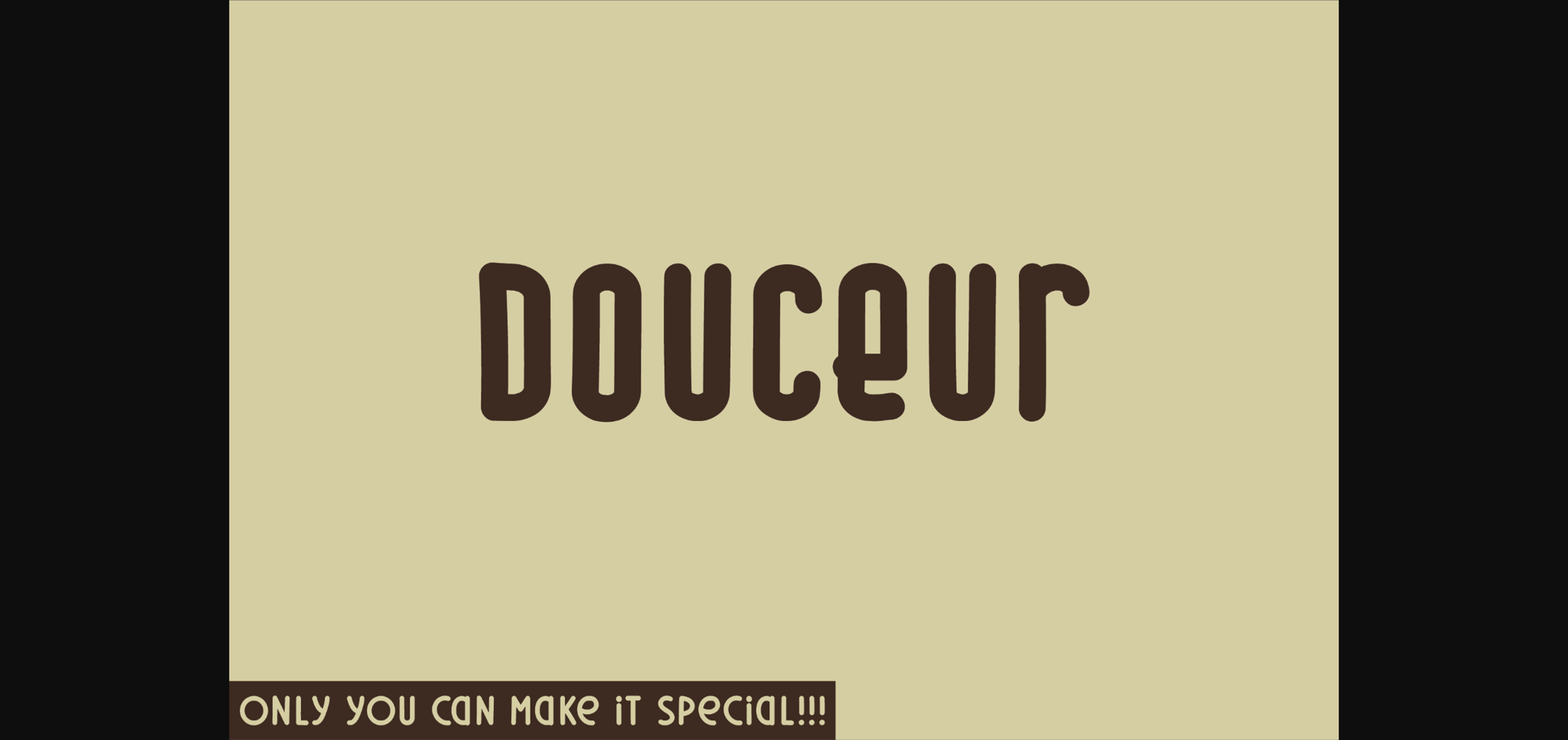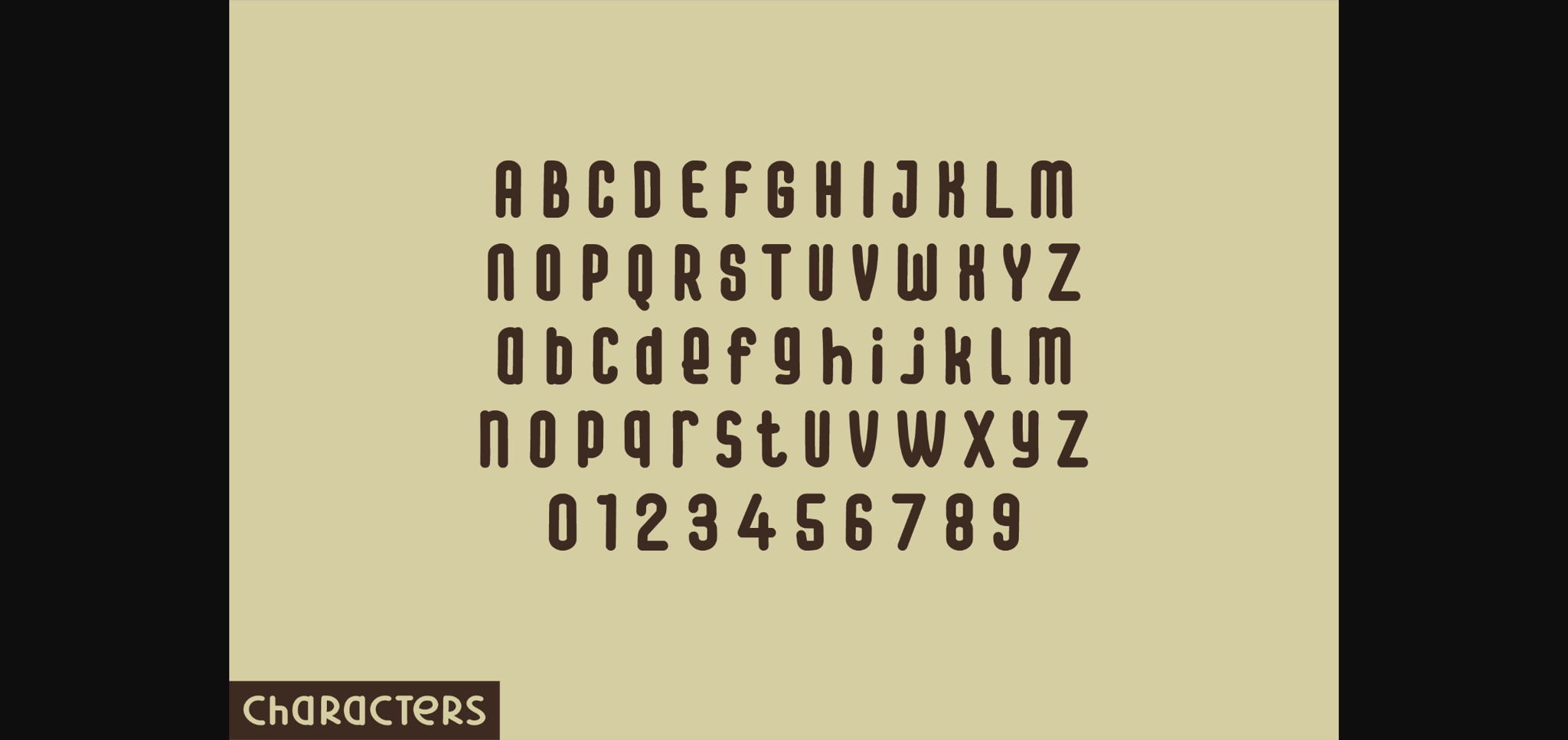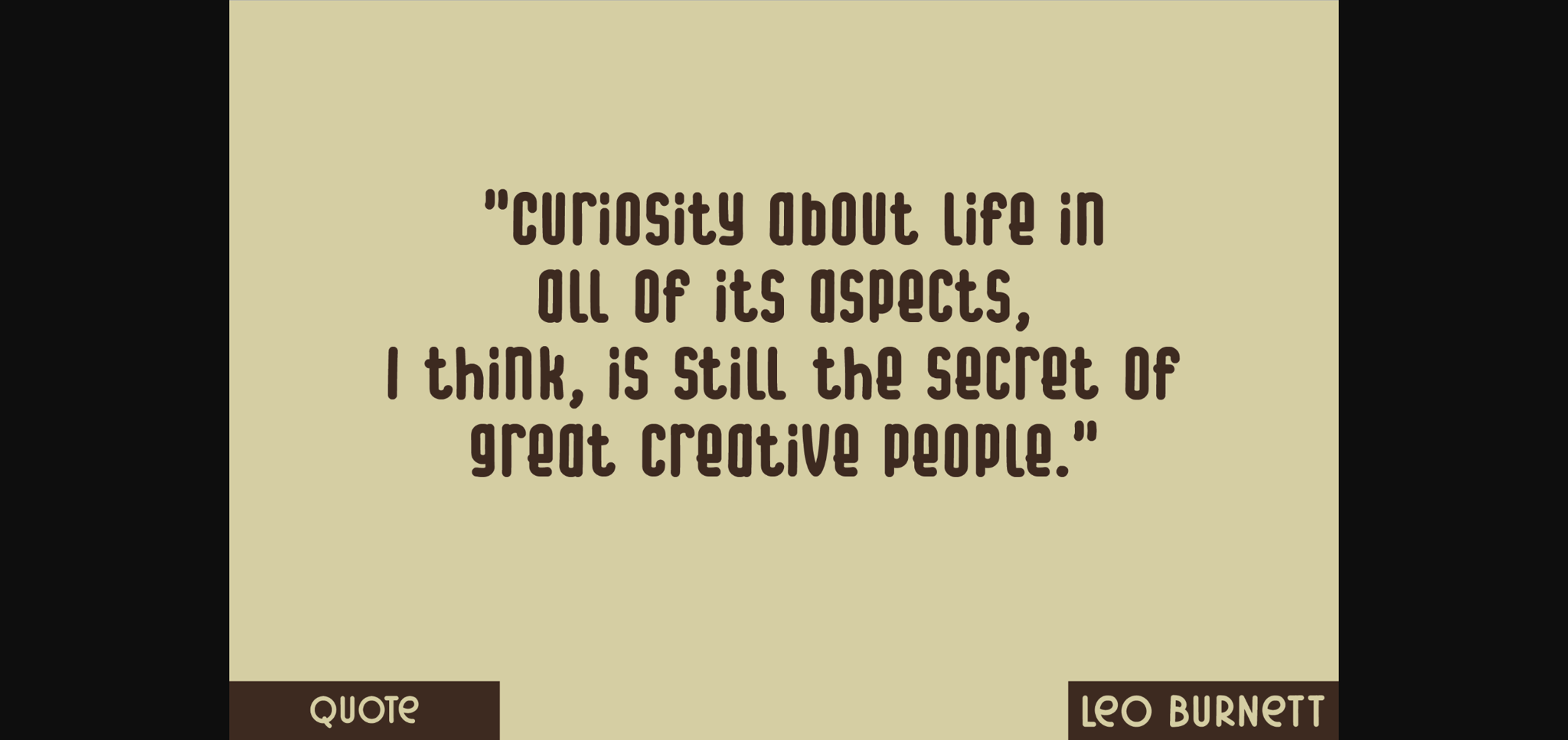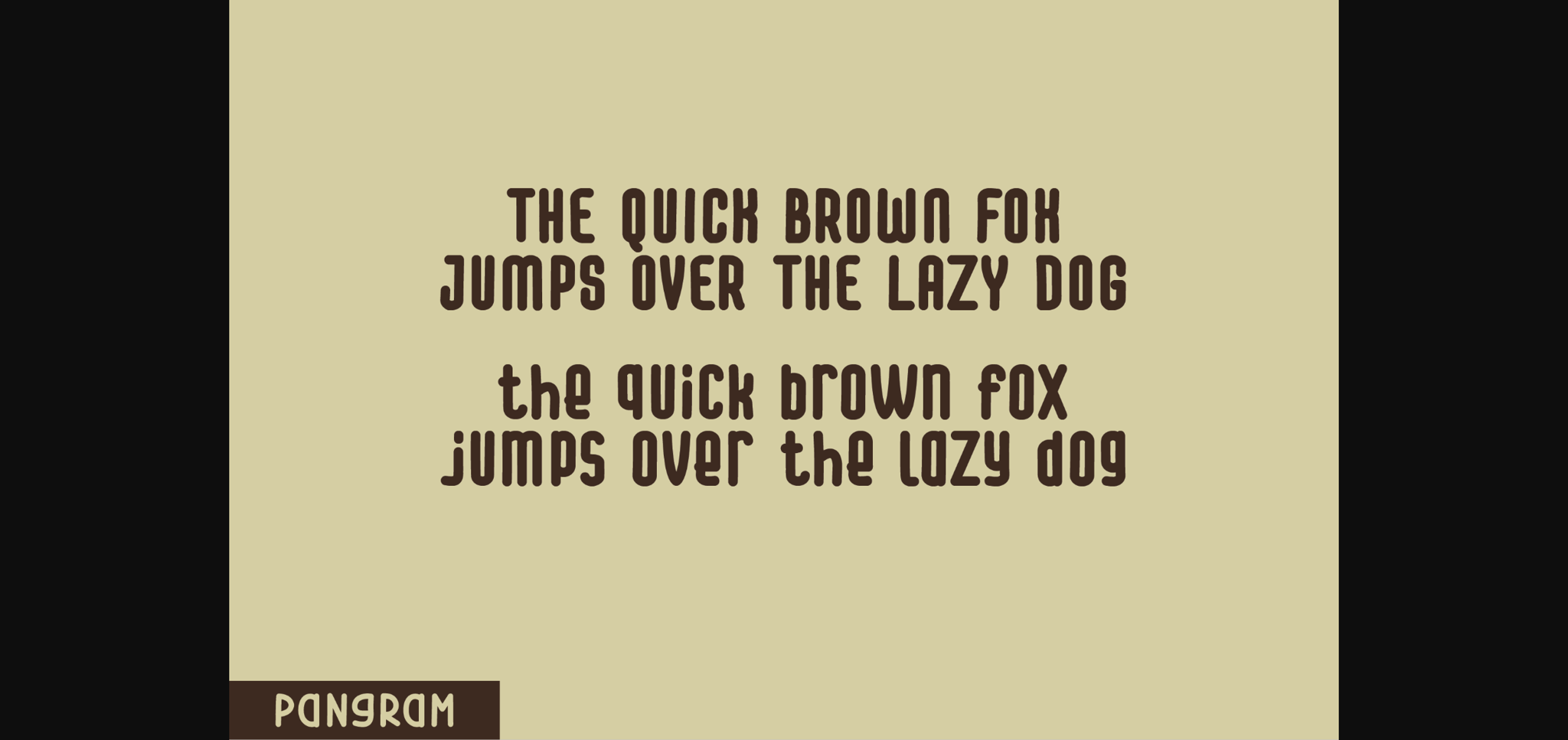
About Douceur Font
Presenting Douceur, an enchanting display font designed with an innovative sans serif outline. Each character of Douceur bears rounded edges, infusing an aesthetic appeal to the typography, further enhancing its allure. With Douceur’s distinct symmetry, your messages resonate on a brighter, more playful note, making it the perfect choice for designs that aim to deliver a captivating and beautiful impression.